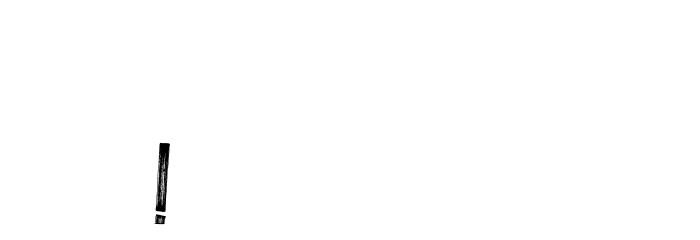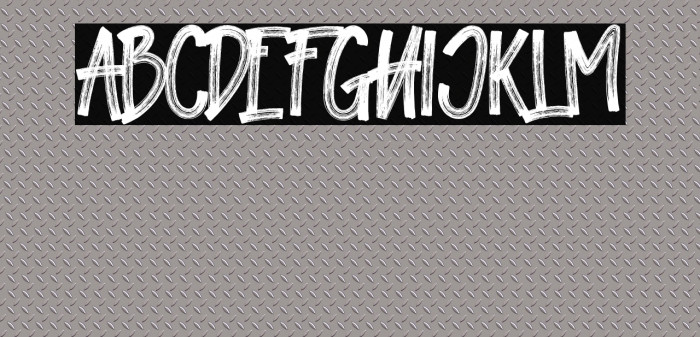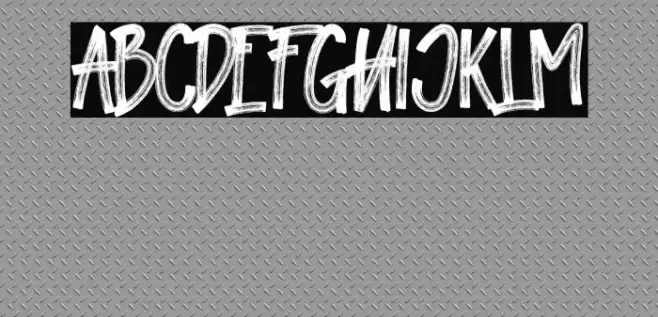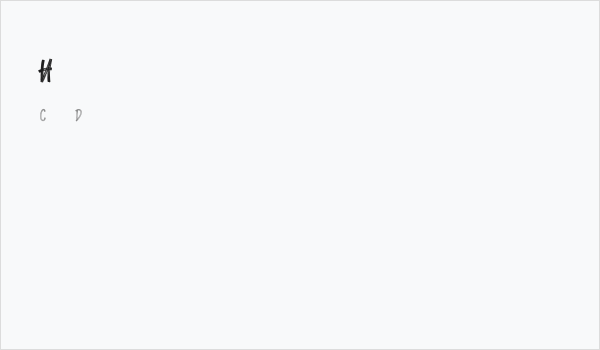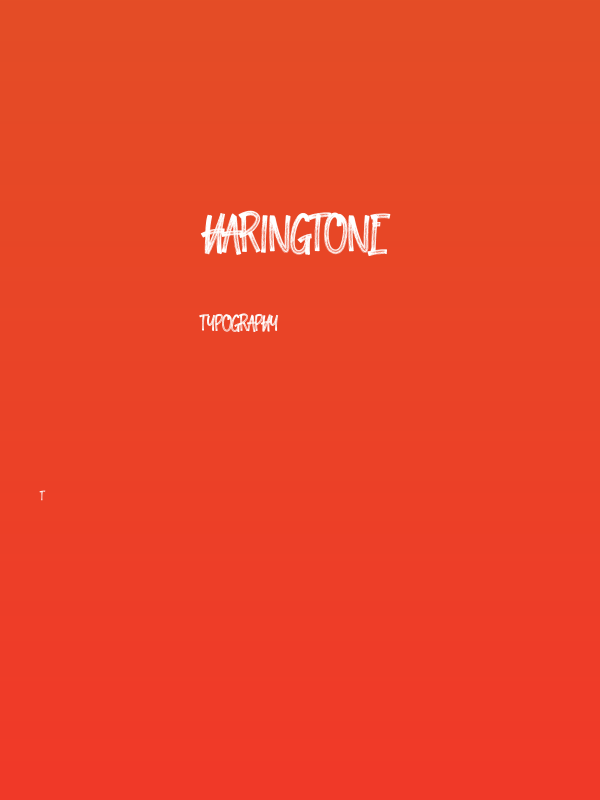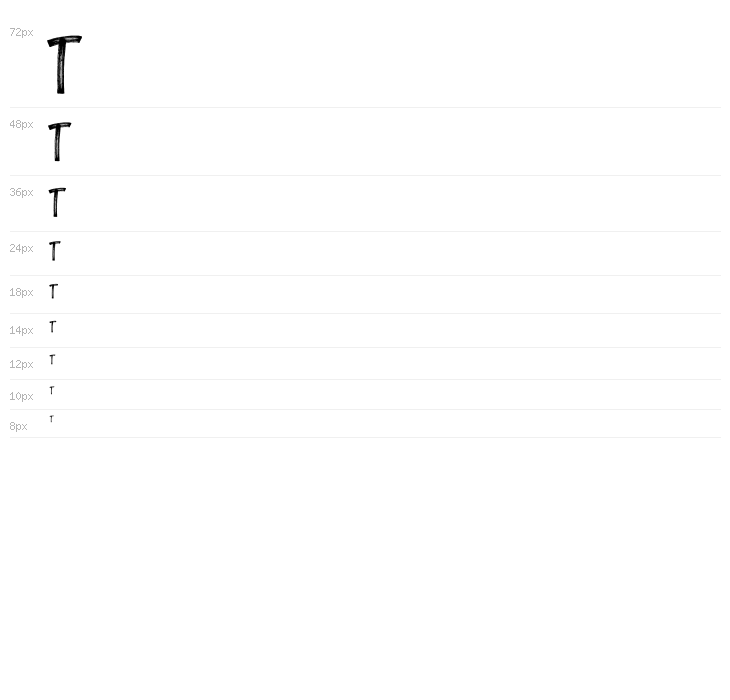
Haringtone Font
Haringtone Description
This font features a bold, hand-drawn style with a playful and energetic appearance. The letters are slightly slanted, giving a dynamic and informal feel. The strokes are uneven, with a brush-like texture that adds a sense of movement and creativity. The uppercase letters are prominent, while the lowercase letters maintain the same lively character. The font is suitable for projects that require a personal touch or a casual, artistic vibe. Its unique style makes it stand out, perfect for eye-catching designs.
| Proposed Projects | Ideal for posters, greeting cards, children's books, and creative branding. |